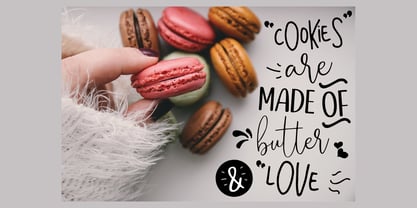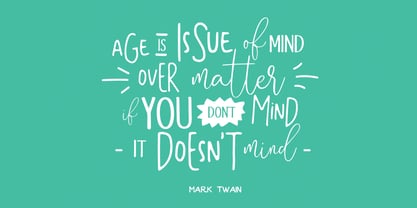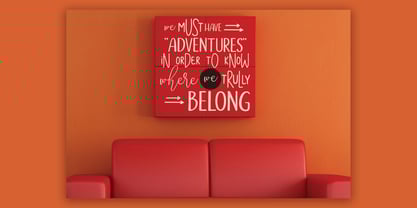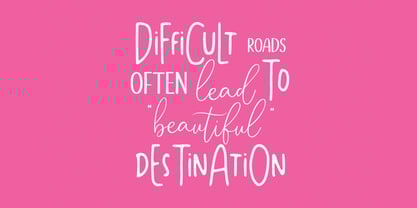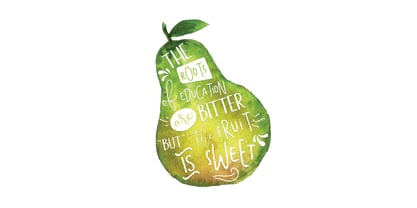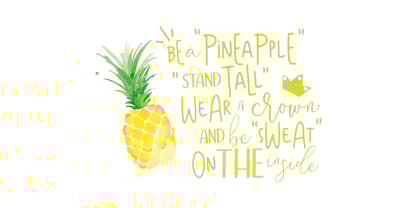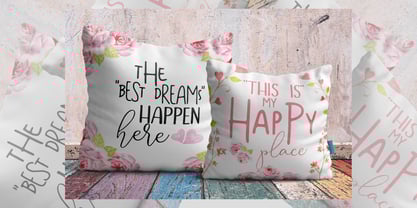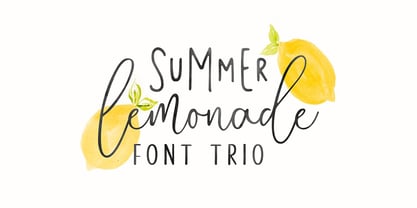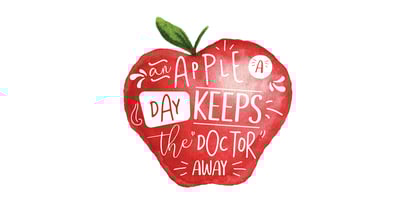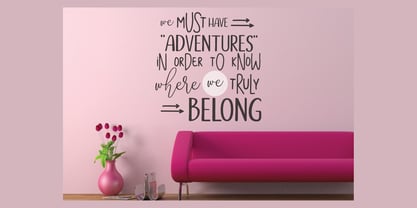
Summer Lemonade
by Hart Foundry
The Summer Lemonade Font Family was designed by Muhammad Ardiansyah and published by Hart Foundry. Summer Lemonade contains 4 styles and family package options. More about this family
Summer Lemonade is a handwritten font trio, this font very easy to use and really playful. by combining three fonts, you can explore to create a combination that would have been nice.
• Summer Lemonade Script • This font have two different style, uppercase acts as lowercase. so in this font have two lowercase and its terms can be combined as alternative.
• Summer Lemonade Doodles • These are the doodles we use in the display. So you can use it like an existing display. Please type A-Z to see all.
• Summer Lemonade Sans One • This fonts have uppercase and lowercase, and if you create a word, you can make like a bouncing effect. like the word "summer" in the main display.
• Summer Lemonade Sans Two • This font all caps only, so you can play around with all of these fonts and create something funny and awesome.
Designers: Muhammad Ardiansyah
Foundry: Hart Foundry